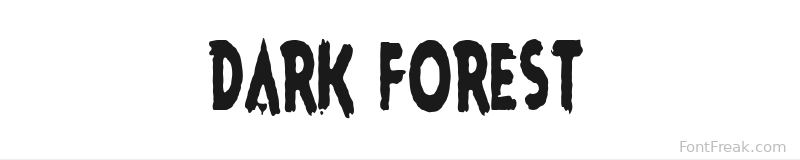
Dark Forest
About Dark Forest
Discover the captivating "Dark Forest" font, designed by the talented woodcutter Manero. This decorative typeface, released as freeware, exudes a unique charm that draws inspiration from nature's mystique. The font features bold, rugged letterforms with uneven edges that mimic the organic shapes found in a dense forest. Its stroke weight varies, creating an intriguing contrast that enhances its visual appeal. The spacing between characters is thoughtfully designed to maintain readability while preserving the adventurous spirit of the typeface.
"Dark Forest" is perfect for a variety of creative projects. It shines in applications such as movie posters, where its dramatic flair can evoke a sense of mystery and intrigue. This font also works wonderfully in restaurant menus, particularly for establishments that focus on rustic or nature-inspired themes. Additionally, it makes a striking choice for branding materials aimed at outdoor enthusiasts or eco-friendly businesses. Wedding invitations can benefit from its enchanting aesthetic, setting a whimsical tone for nature-themed celebrations. Content creators and graphic designers will find this font particularly appealing, as it allows for expressive typography that stands out in a crowded digital space.
The target audience for "Dark Forest" includes graphic designers, small business owners, and content creators who seek distinctive typefaces to elevate their work. Whether you’re crafting visually stunning visuals or memorable branding, this font offers a unique touch that captures attention and inspires creativity.
What sets the "Dark Forest" font apart is its harmonious blend of rugged charm and artistic flair, making it a versatile choice for a range of projects. With the "Dark Forest font free download," you can easily incorporate this striking typeface into your next design endeavor, ensuring your work resonates with a touch of nature's beauty.